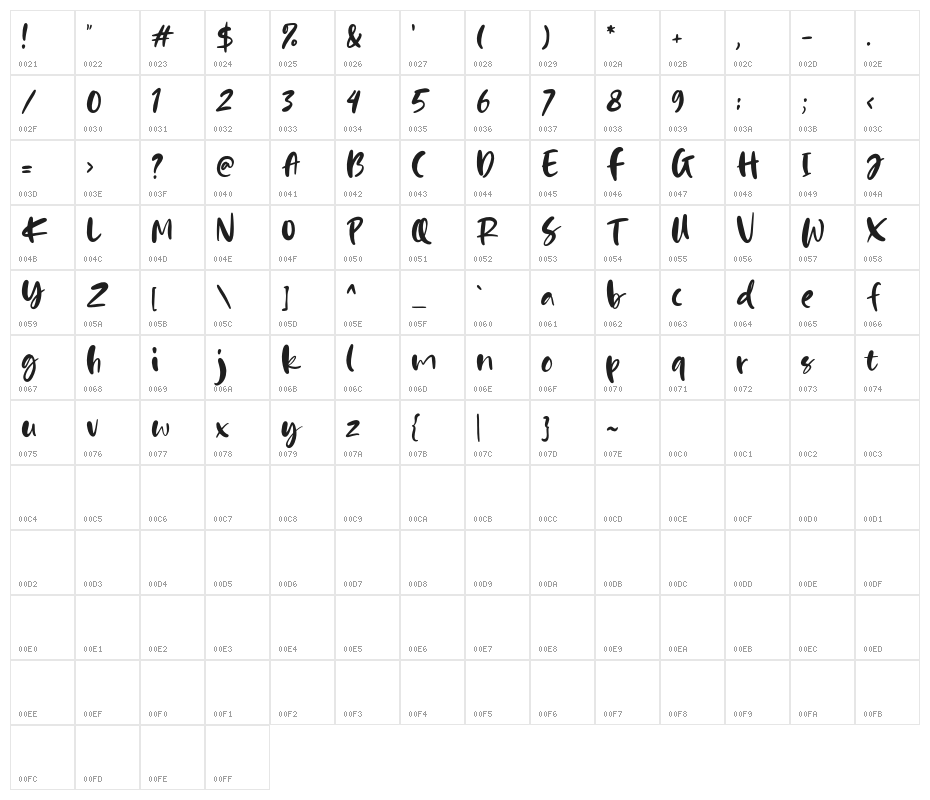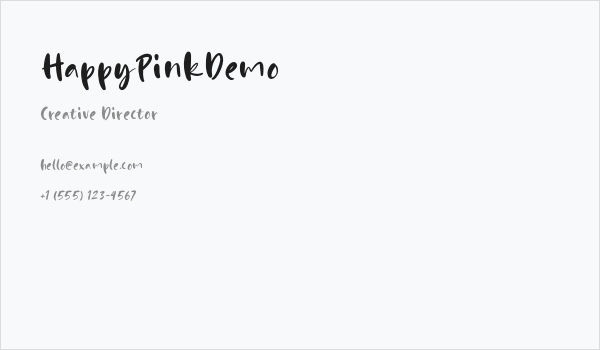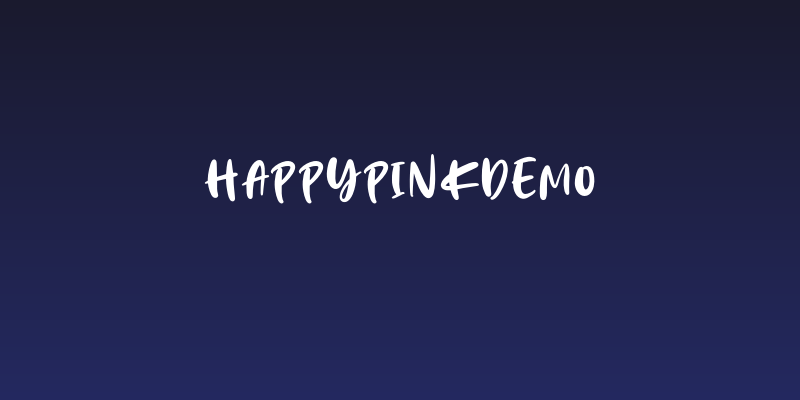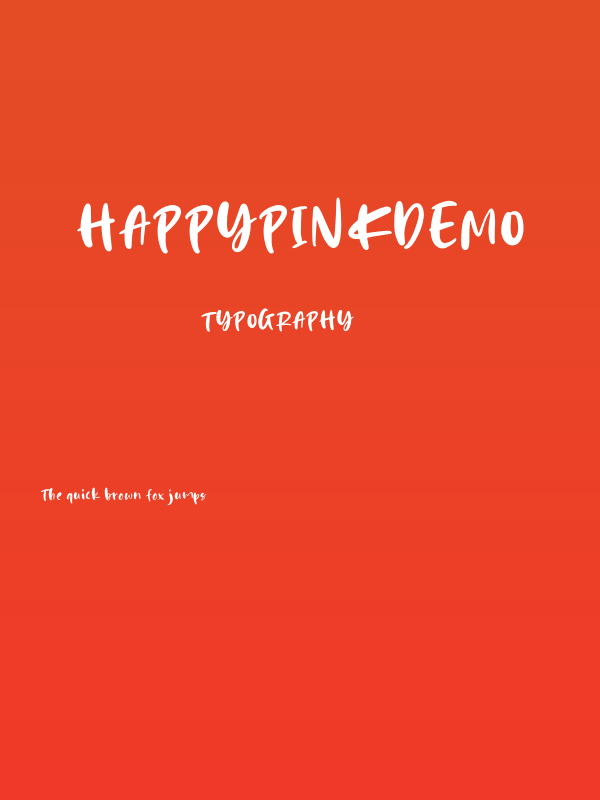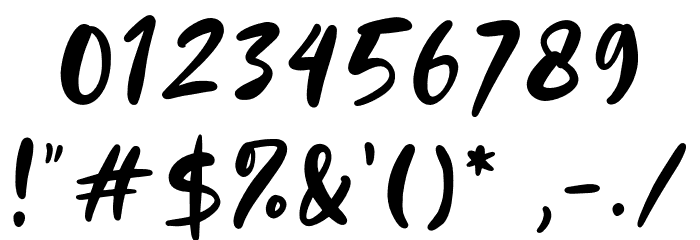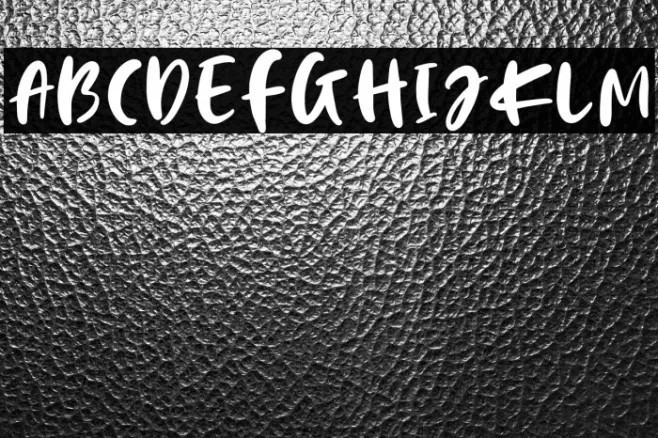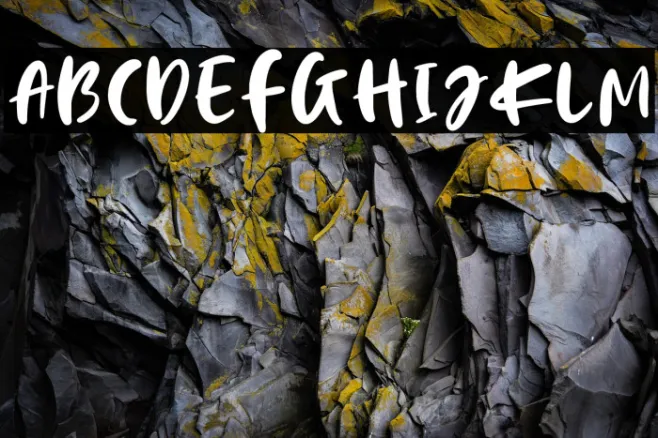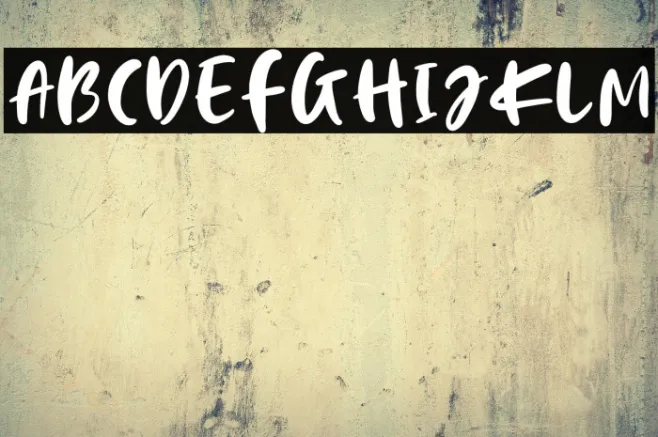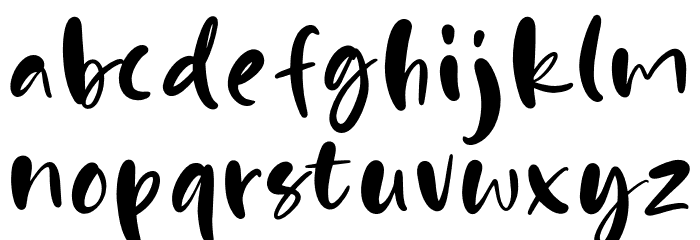
HappyPinkDemo Font
HappyPinkDemo Description
This font features a playful and energetic handwritten style, characterized by its bold and fluid strokes. The letters have a casual and friendly appearance, with a slight slant that adds to its dynamic feel. The uppercase and lowercase letters maintain a consistent style, with rounded edges and varying stroke widths that give it a lively and informal look. The numerals and special characters are designed to complement the overall aesthetic, making it suitable for creative and expressive projects. Its unique style makes it stand out, adding a personal touch to any design.
| Proposed Projects | Ideal for greeting cards, invitations, social media graphics, and branding projects that require a personal and friendly touch. |